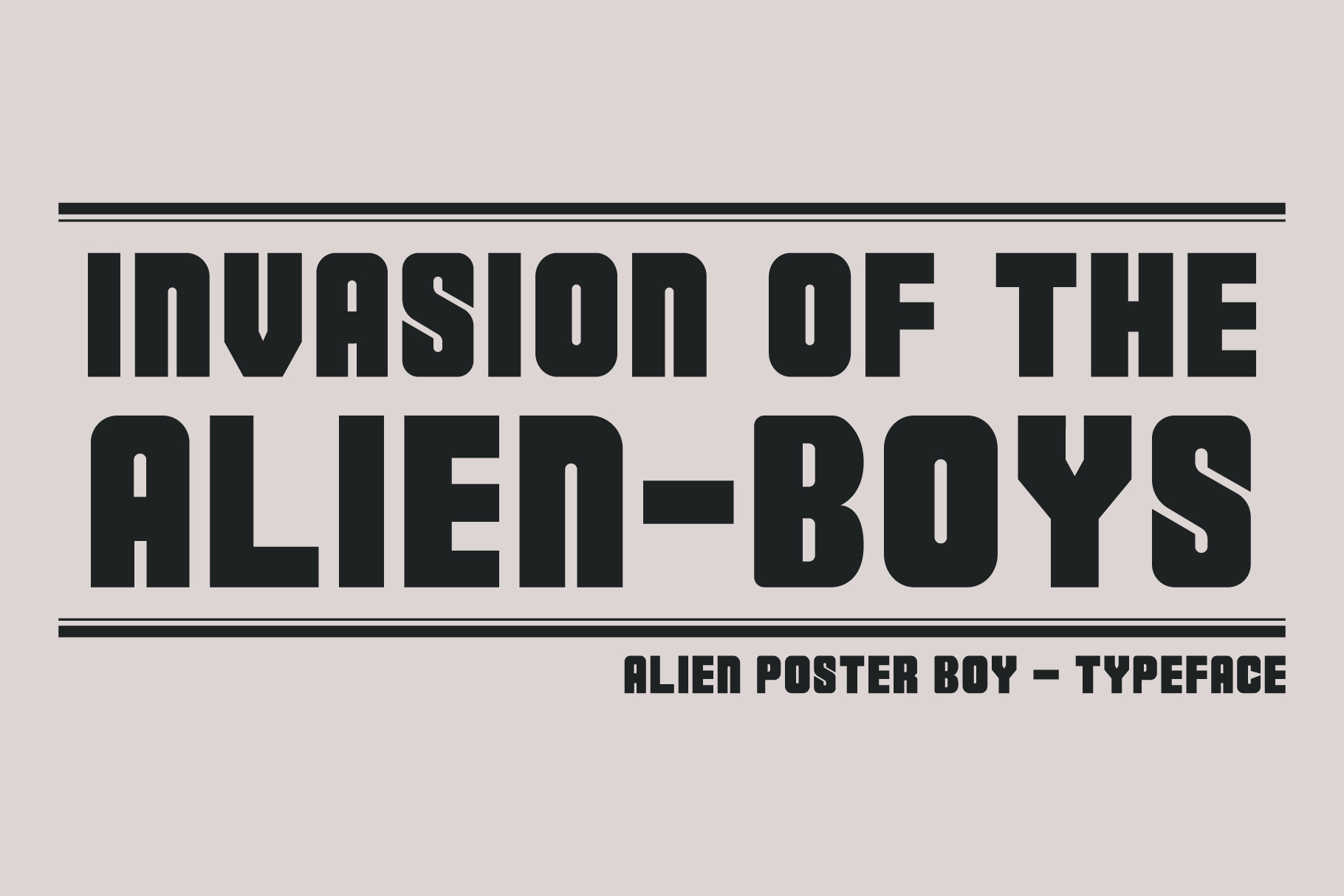
Alien Poster Boy - Typeface
Alien Poster Boy - Typeface Inspired by 1950's Scifi B-Movie Posters
Details: This is an uppercase and lowercase typeface, with symbols, numbers and some alternate characters.